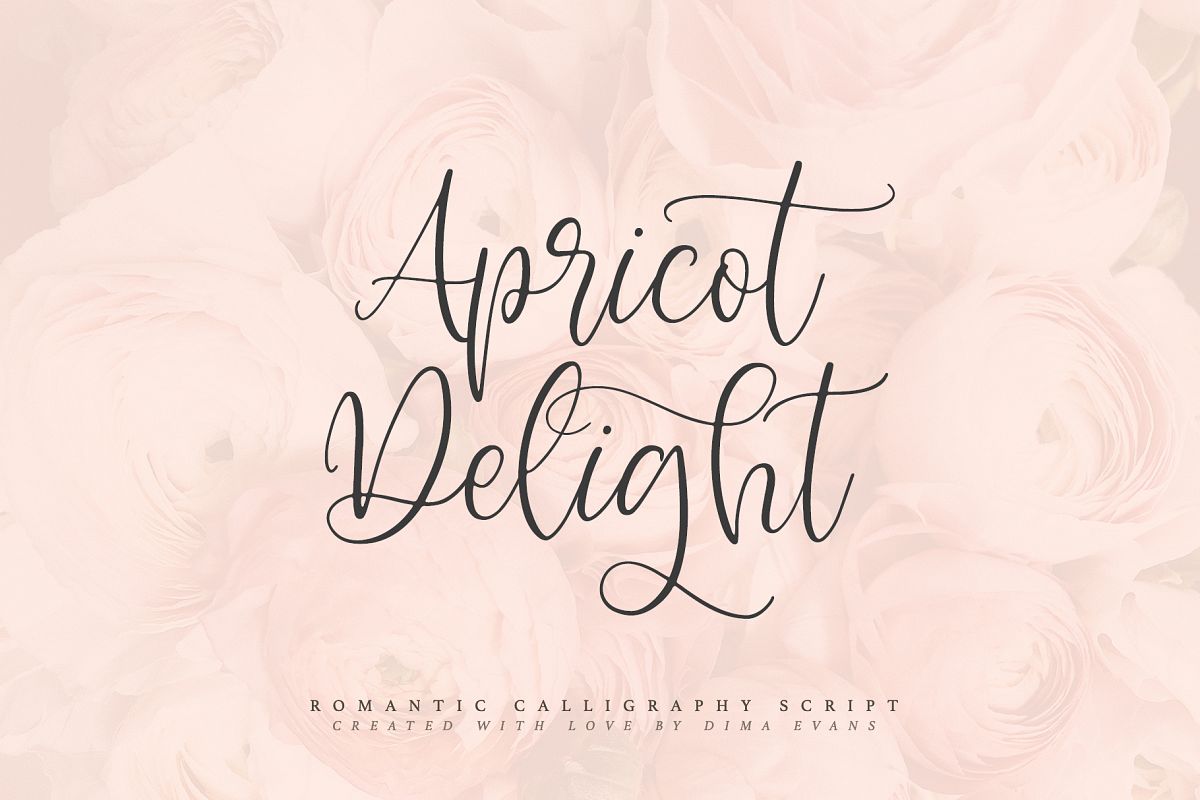
Apricot Delight | Romantic Script
Apricot Delight it is a Calligraphy chick font with exquisite accents. It is perfect for branding, wedding invitations and invitation cards and many more
Font includes a full set of gorgeous uppercase and lowercase letters, numbers, a large selection of punctuation marks, ligatures & set of cute swashes
- Regular Script
- Swashes Set
- Latin languages support
- Uppercase and lowercase